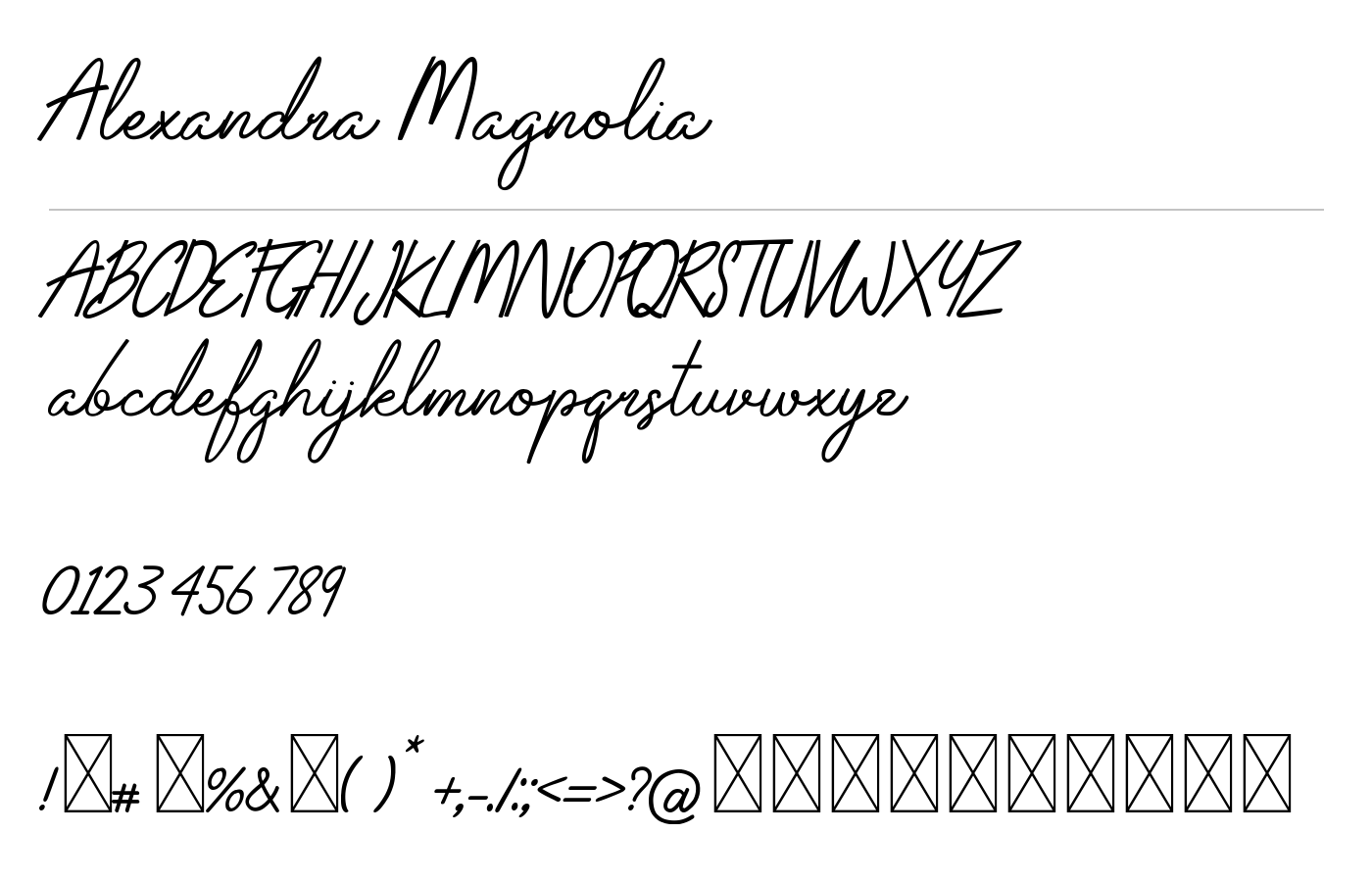
Alexandra Magnolia is a delicate and elegant script font that features smooth, flowing letterforms with a light weight and a natural handwritten feel. Its tall, slender characters and subtle slant give it a refined, graceful personality perfect for invitations, branding, and stylish editorial projects seeking a personal yet polished touch. This font works beautifully in designs that aim to convey sophistication and warmth with a modern handwritten charm.
Alexandra Magnolia Font
About Alexandra Magnolia Font